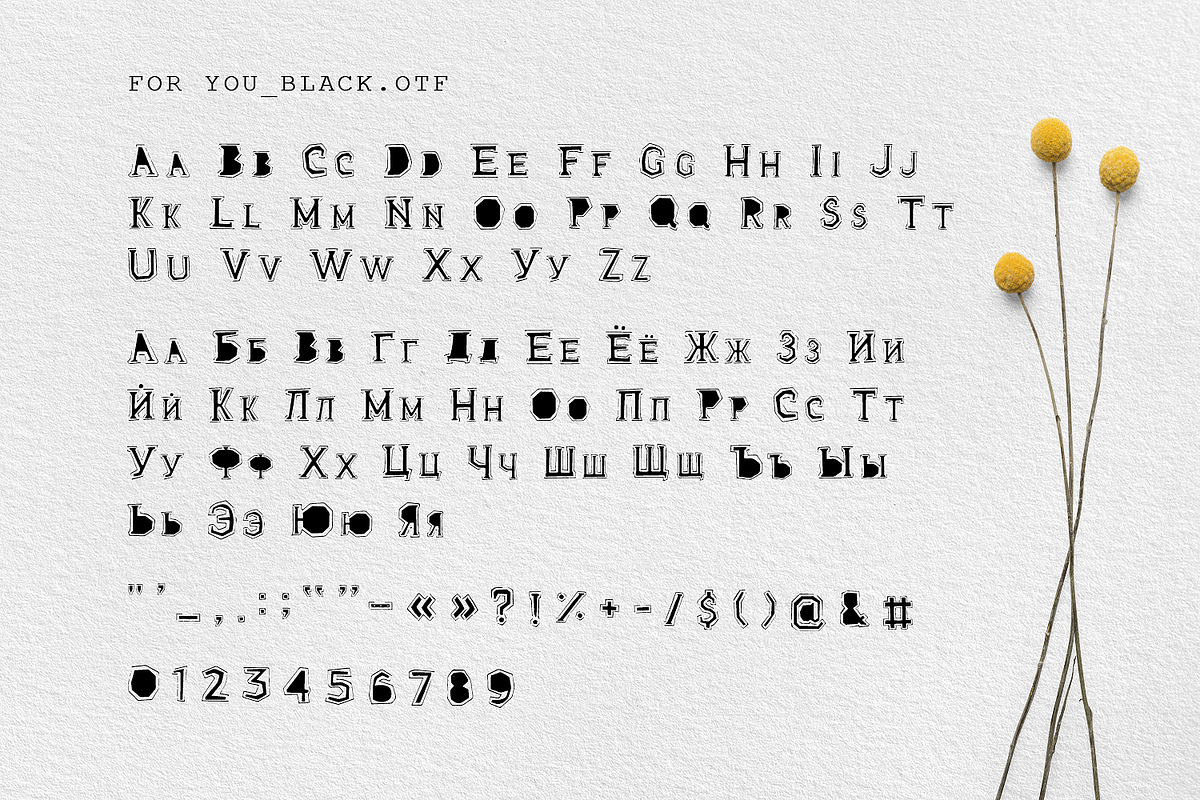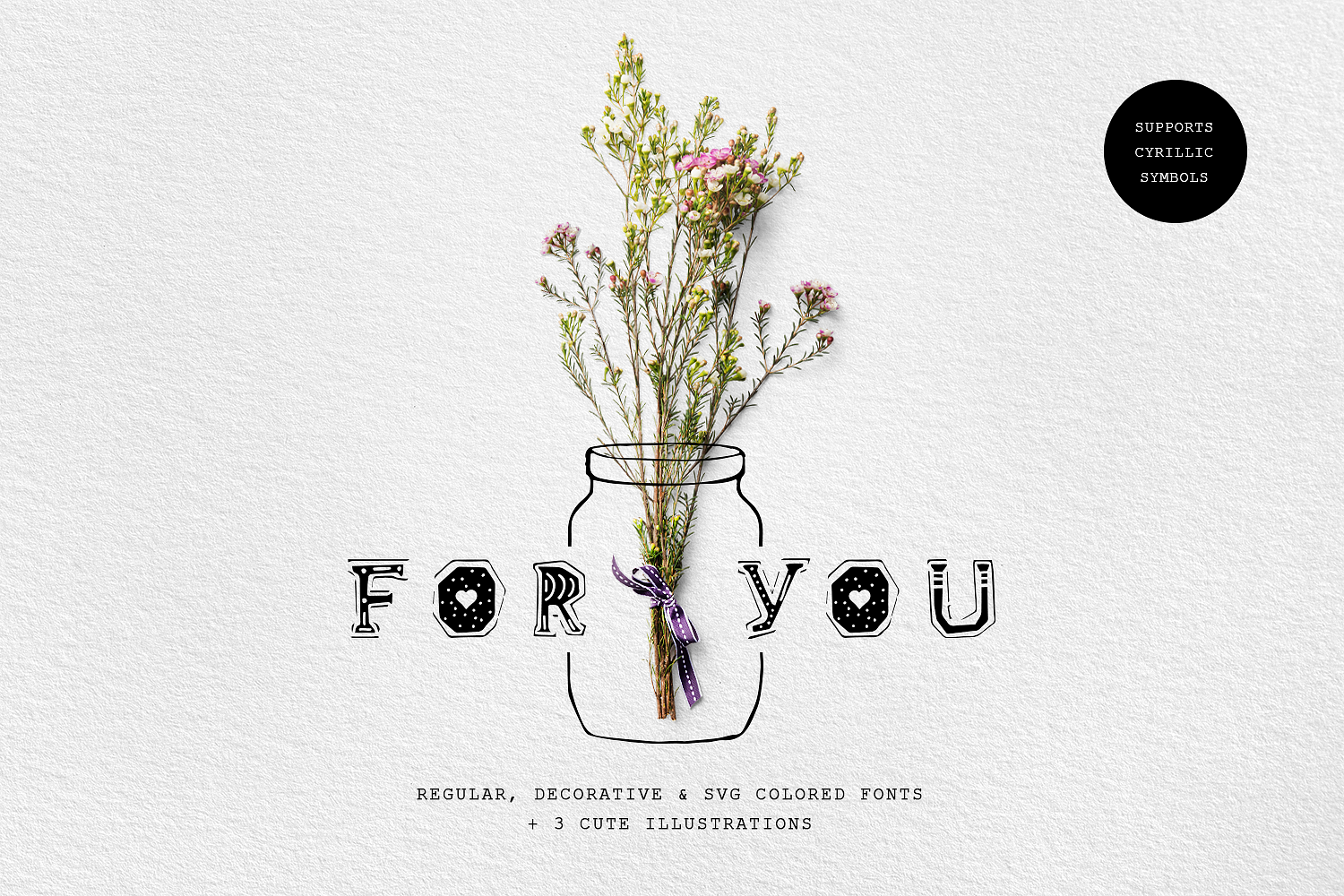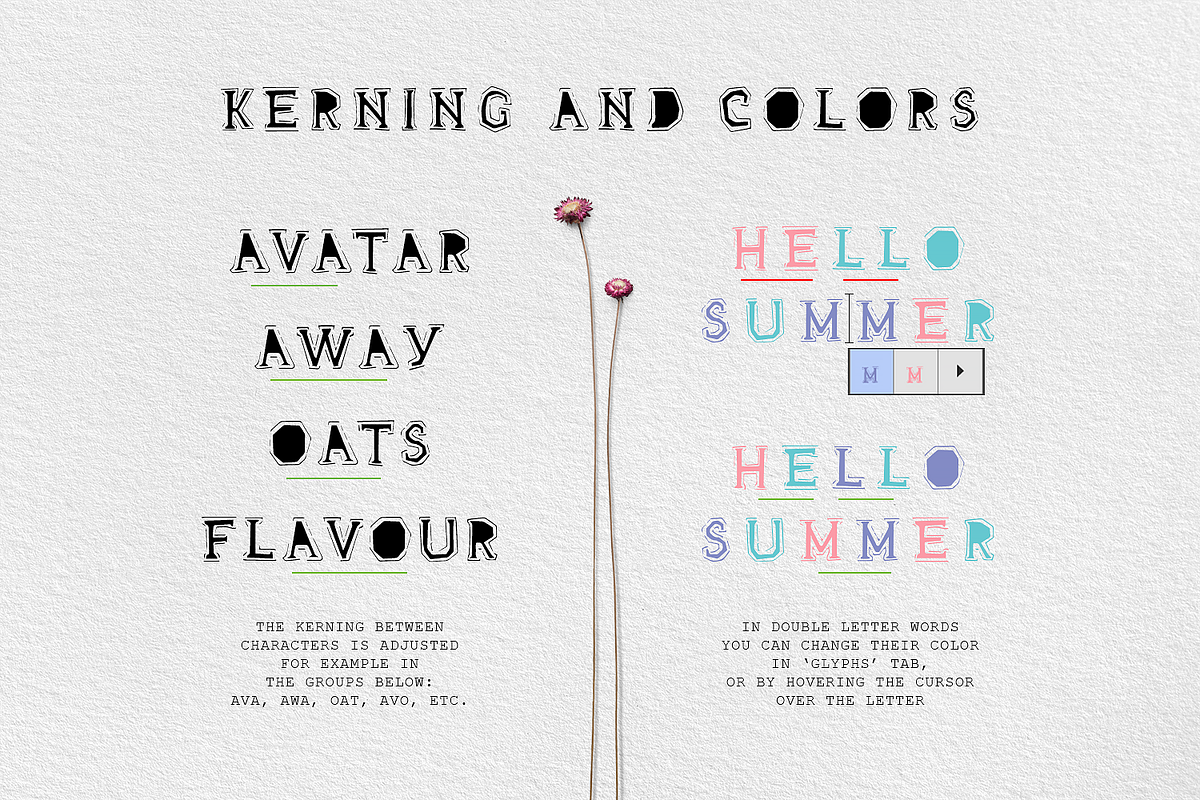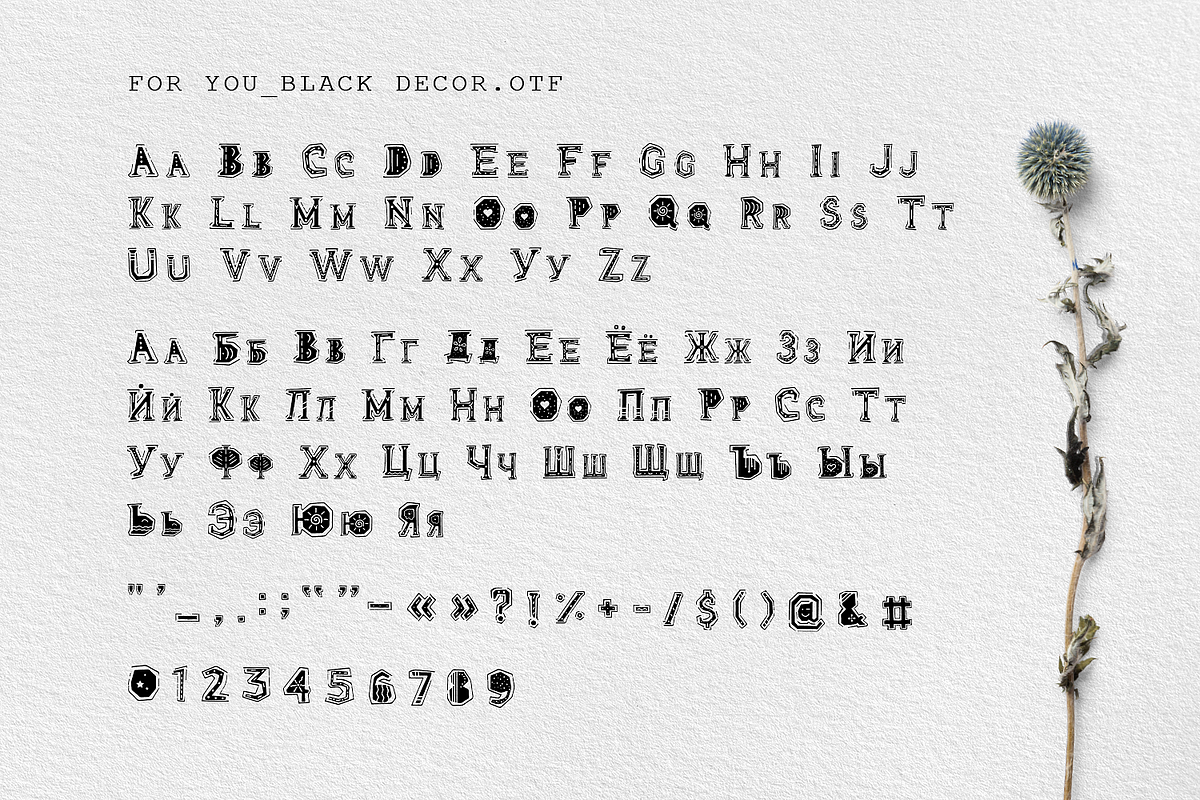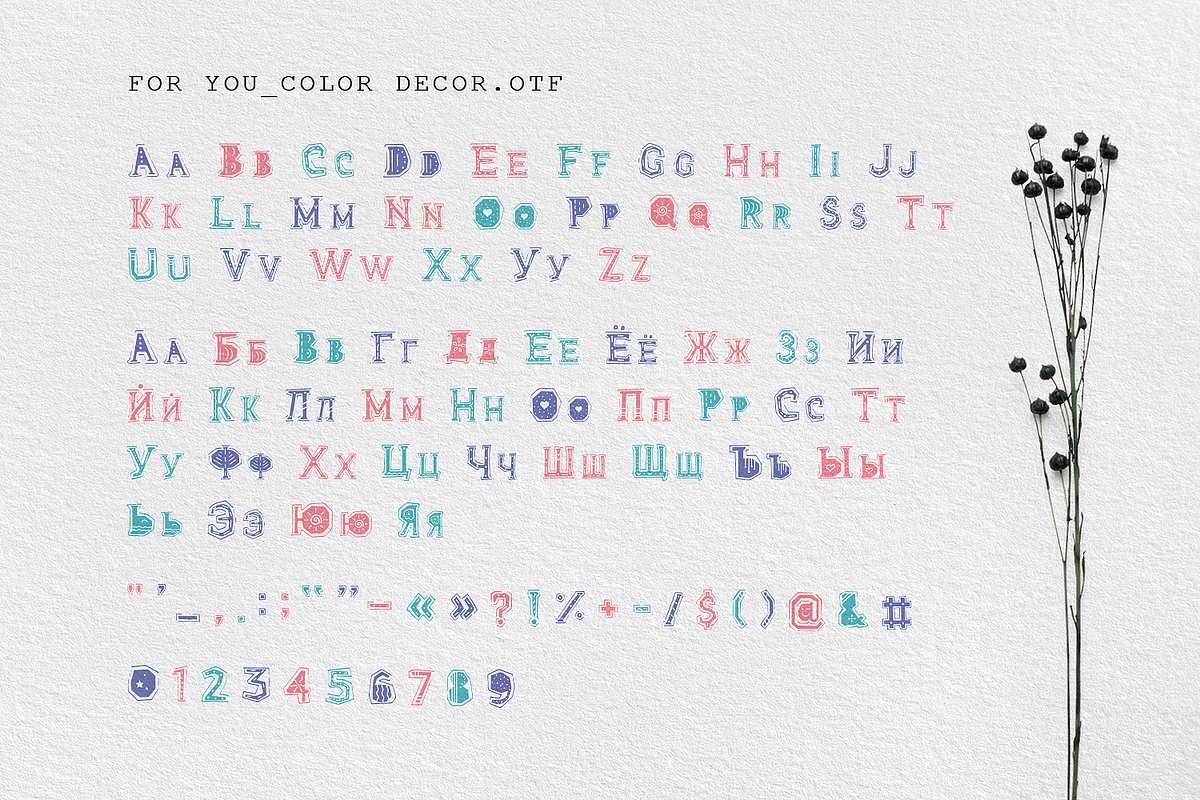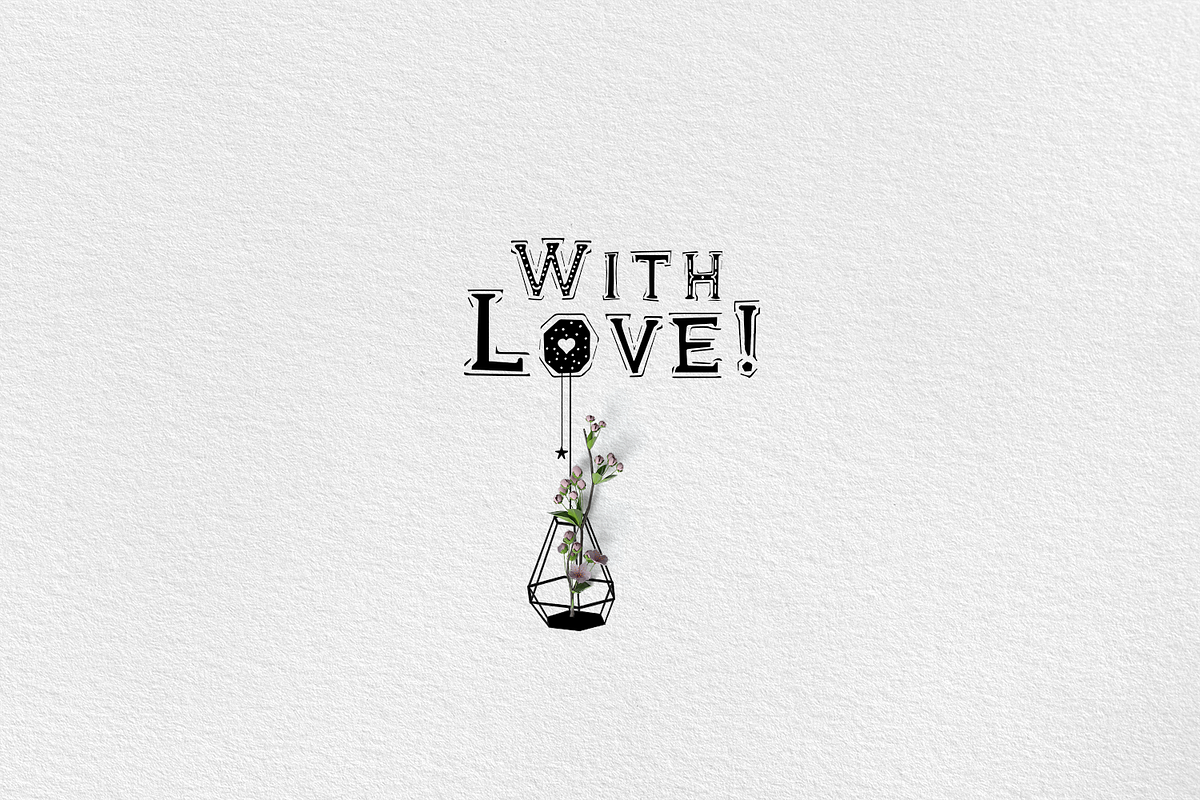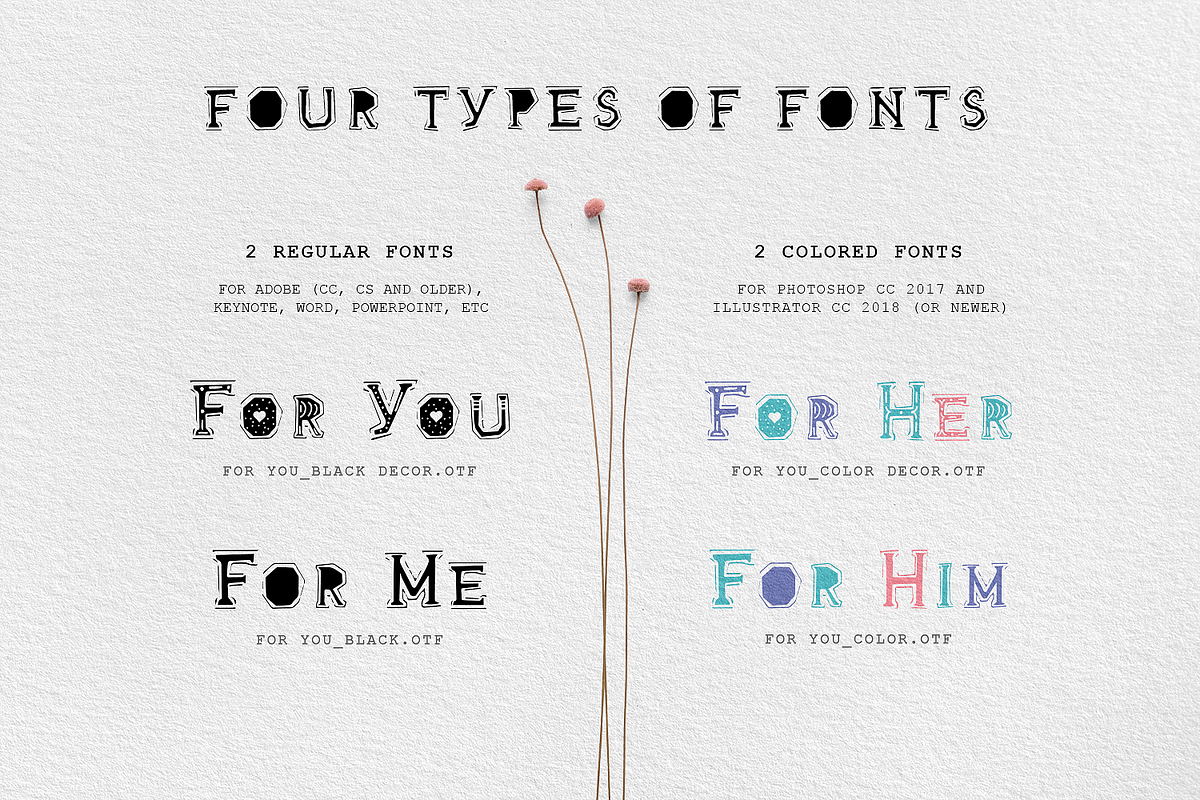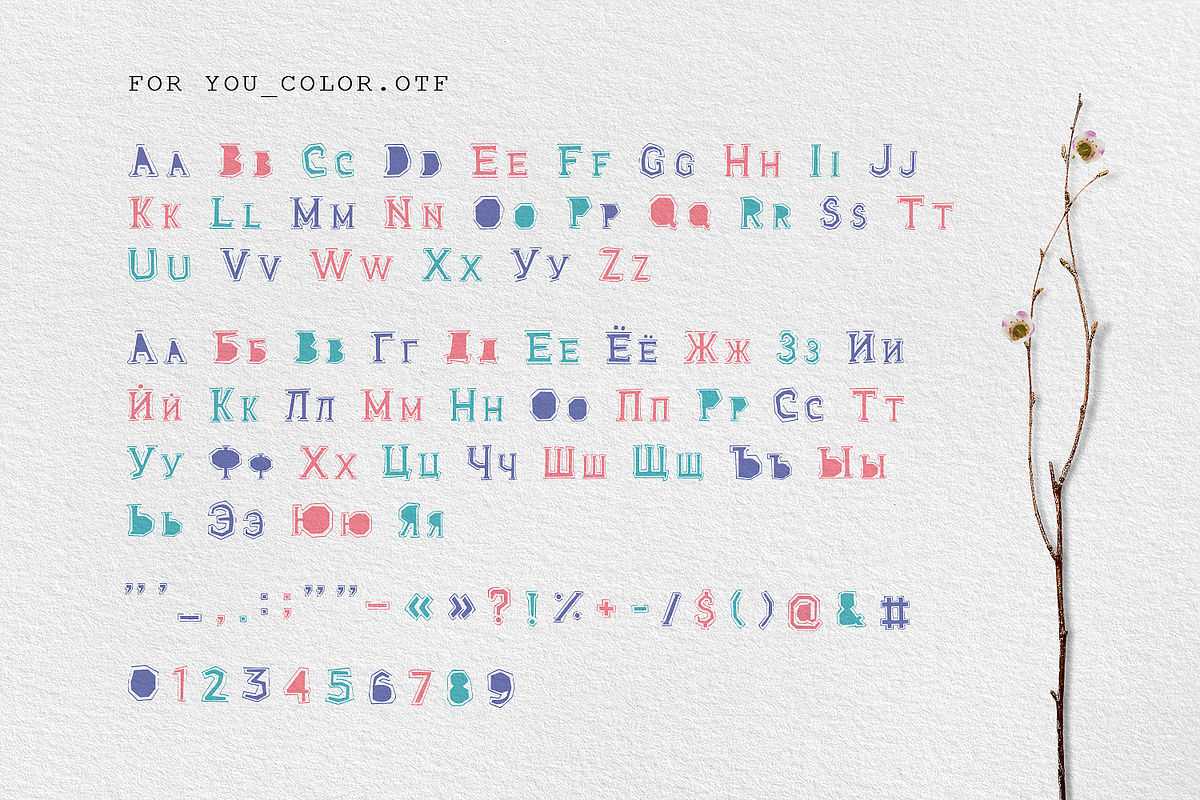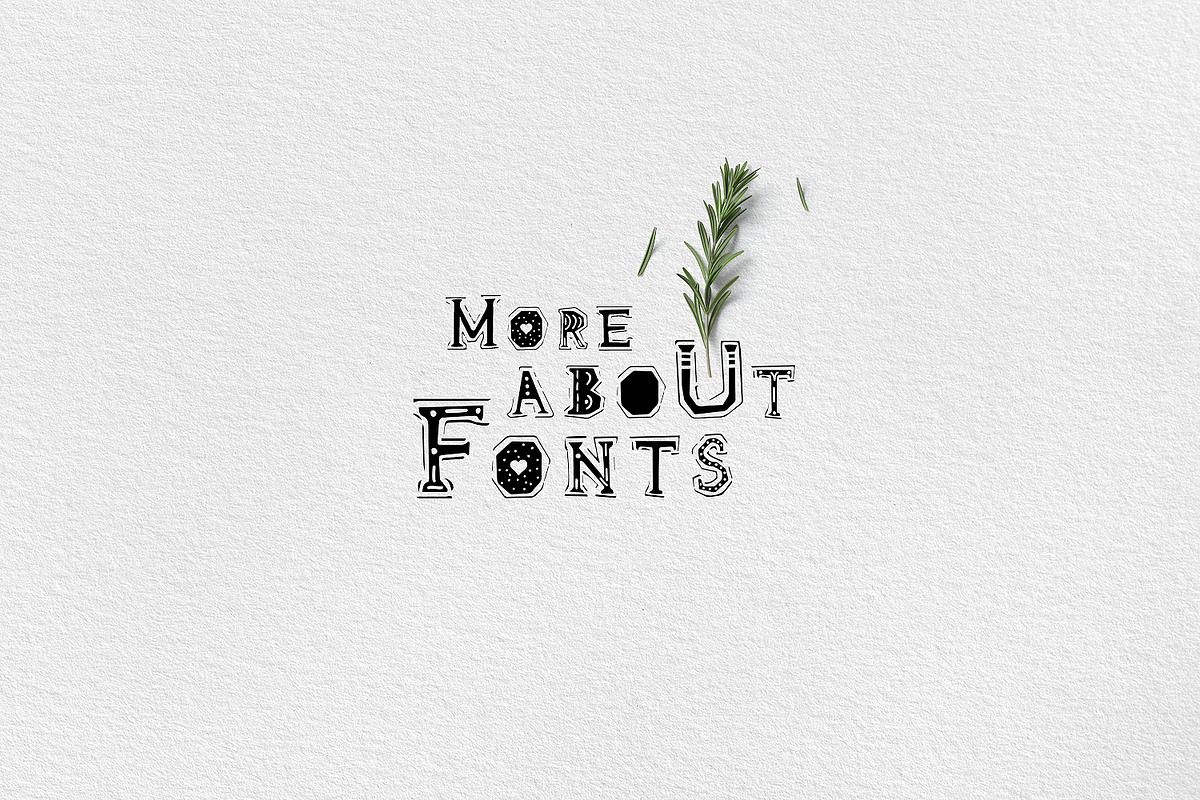
For You! Decorative & Colored Fonts
I'm glad to introduce my new font family «For You». «For You» is a handmade font which has 4 variations: 2 regulars and 2 colored fonts. This font will help you express your love on Valentine’s Day, send postcards for kids, make invitations for funny themed parties, create t-shirt prints, decorate your home, and even create unique logos. To sum it up, this font was created For You! ♥
- Supports the cyrillic symbols
- Uppercase and lowercase letters included